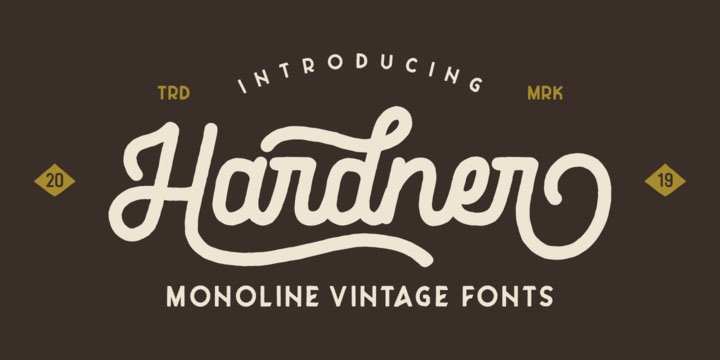
Hardner Font
Hardner Font is perfect for industrial branding, construction company logos, heavy machinery marketing, metalworking business signage, manufacturing communications, steel industry materials, hardcore fitness branding, rugged outdoor equipment labels, industrial design projects, and tough durability messaging.
Hardner Font is exciting because it embodies the uncompromising strength and industrial resilience of heavy-duty manufacturing with its robust letterforms that communicate durability, reliability, and unwavering toughness. Its powerful character design combines industrial precision with raw strength, making it perfect for brands that need to convey absolute dependability, hardcore performance, and the kind of toughness that withstands the most demanding industrial applications.
The Hardner Font family includes Light, Regular, Medium, Bold, Extra Bold weights, industrial Italic variations, Condensed styles, Heavy-duty alternates, Steel flourishes, Industrial ornaments, and Tough elements, providing designers with comprehensive tools for creating powerful industrial typography that captures the essence of unbreakable strength and manufacturing excellence.
Hardner Font Free Download delivers uncompromising industrial typography for brands that demand absolute toughness and reliability, featuring powerfully engineered letterforms that embody the strength and durability of heavy industry and manufacturing excellence. This formidable typeface combines industrial heritage with contemporary functionality, creating the perfect solution for companies operating in construction, manufacturing, and heavy-duty industries that require bulletproof brand communication.
Whether you're developing industrial brand identities, designing construction marketing materials, creating manufacturing communications, or producing heavy-duty equipment branding, Hardner Font provides the tough foundation needed for credible industrial positioning. Its hardcore character makes it particularly effective for steel manufacturers, construction companies, heavy machinery producers, and industrial service providers targeting professionals who demand uncompromising quality and durability.
Perfect for industrial marketers, construction brand designers, manufacturing communicators, and creative professionals working with heavy-duty industries, this font offers the tough qualities essential for successful industrial market positioning. The typeface's unbreakable nature ensures consistent strength across both digital industrial platforms and traditional manufacturing applications.
Hardner Font includes comprehensive industrial character sets, heavy-duty design elements, and steel-strong spacing that guarantees superior performance in industrial design applications. Its hardcore approach to typography makes it indispensable for brands requiring absolute toughness and industrial credibility. Build unbreakable brands with Hardner Font Free Download and create typography that's truly built to last.